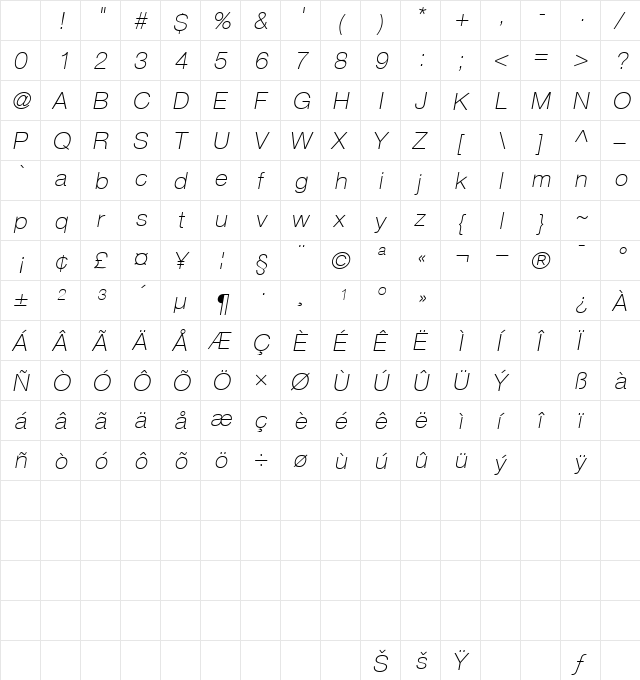
Complete HelveNueThin Oblique glyph index. Displaying only characters natively supported by HelveNueThin Oblique font.
HelveNueThin is a composed and adaptable typeface that performs quietly and consistently across a wide range of design contexts. The slanted form adds forward momentum and visual energy. Its slender proportions lend an understated elegance to any composition.